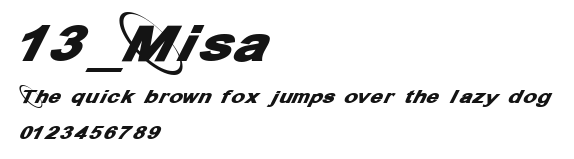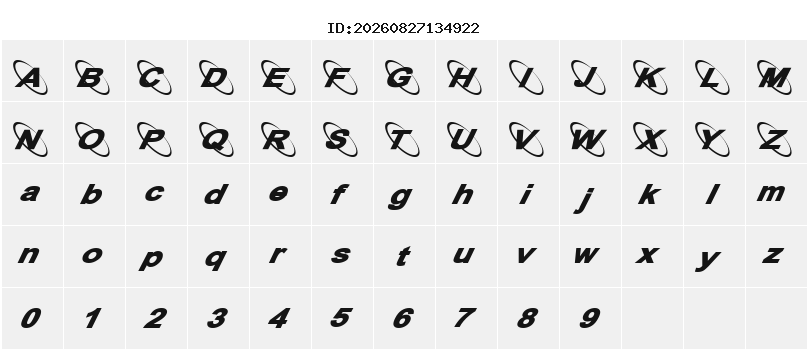
13_Misa Preview
• Font Name: 13_Misa
• Font ID: 13_Misa
• Full Font Name: 13_Misa
• Version: 2.52 04/23/2001
• PostScript Name: 13Misa
• Character Count: 104
About 13_Misa.ttf
13_Misa.ttf is a modern, elegant sans-serif font designed for ultimate readability and visual harmony. Perfect for branding, headlines, web design, and print materials.